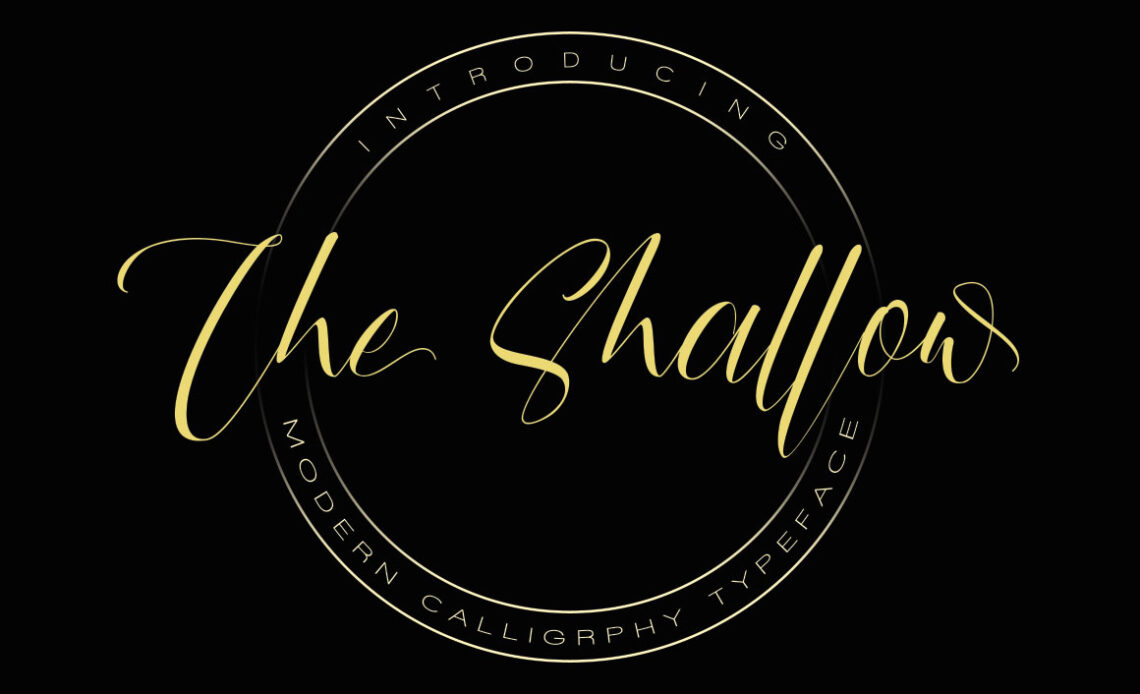
Introducing The Shallow Font, a captivating creation by beeart009. This enchanting script font is a symphony of sophistication and fluidity, beckoning you to dance amidst its graceful curves and mesmerizing strokes. Its clean lines evoke a sense of timeless elegance, while its two enchanting variations, The Shallow and The Shallow Alternate, offer a playful touch that will captivate your audience.
Unleash your creativity with The Shallow Font. Its natural flow will breathe life into your designs, adding a touch of dynamic flair to any project. Whether you're crafting invitations, designing logos, or penning heartfelt letters, this font will ignite your words with a touch of undeniable charm.
Embrace the allure of The Shallow Font and elevate your designs to new heights. Let its enchanting presence inspire you to create masterpieces that leave an indelible mark on all who behold them. Experience the harmonious blend of grace and versatility, and discover why The Shallow Font is the perfect choice for infusing your creations with a touch of timeless beauty.
Indulge in the captivating allure of The Shallow Font and witness the transformation it brings to your creative endeavors. With its enchanting curves and mesmerizing strokes, this font is a treasure that will unlock infinite possibilities. Dive into the depths of its charm and discover a world where beauty and imagination intertwine.